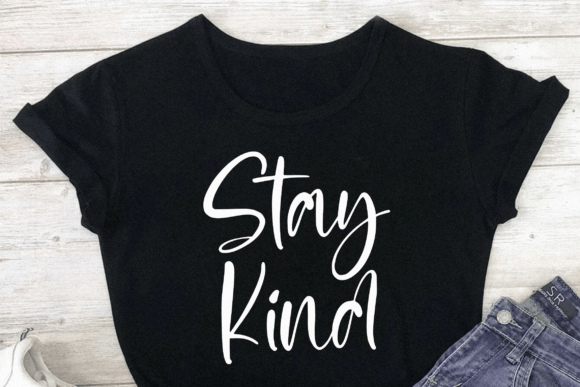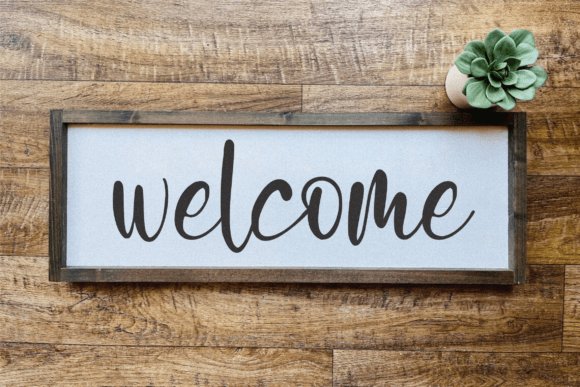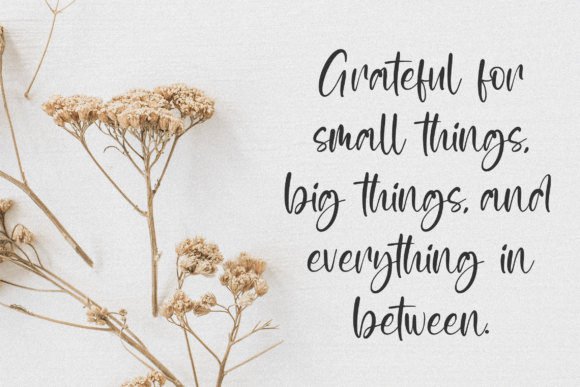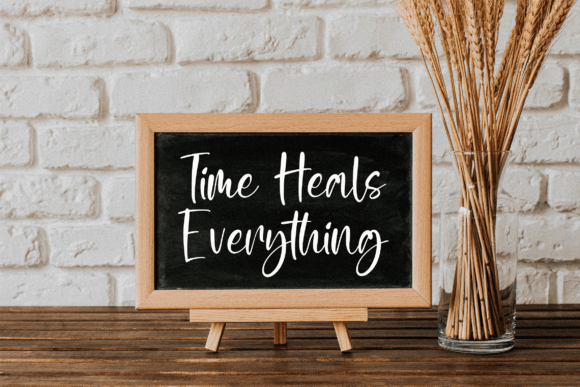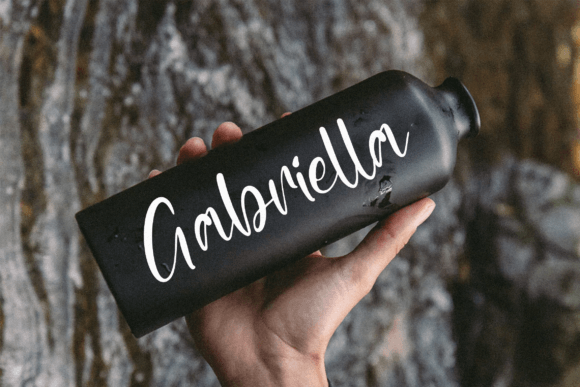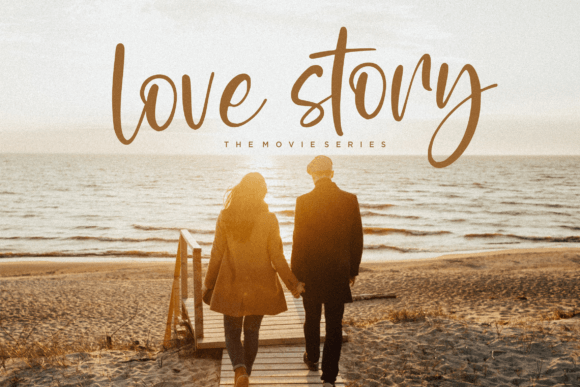
Introducing Daydreami Font: The Perfect Modern Handwritten Font for Your Creative Projects
In the world of typography, a good font can make all the difference in the success of a design project. Whether you’re a designer, craftsperson, or simply a creative individual, finding the right font can be a daunting task. That’s why we’re excited to introduce Daydreami Font, a modern handwritten font that’s perfect for a wide range of applications. From product packaging and branding projects to magazines, social media, weddings, and more, Daydreami Font is the ideal choice for anyone looking to add a personal touch to their work.
What is Daydreami Font?
Daydreami Font is a modern handwritten font that’s designed to be both elegant and approachable. With its smooth, flowing lines and whimsical feel, this font is perfect for adding a touch of personality to any design project. Whether you’re looking to create a bold statement or a subtle accent, Daydreami Font is the perfect choice.
Key Features of Daydreami Font
So, what makes Daydreami Font so special? Here are just a few of its key features:
- Modern and Handwritten: Daydreami Font is a modern handwritten font that’s designed to look both contemporary and approachable.
- Versatile: This font is perfect for a wide range of applications, from product packaging and branding projects to magazines, social media, weddings, and more.
- Elegant and Whimsical: With its smooth, flowing lines and whimsical feel, Daydreami Font is the perfect choice for anyone looking to add a touch of personality to their work.
- Easy to Read: Despite its elegant and whimsical feel, Daydreami Font is still easy to read, making it perfect for body text and other applications where legibility is important.
How to Use Daydreami Font
So, how can you use Daydreami Font in your design projects? Here are just a few ideas to get you started:
- Product Packaging: Use Daydreami Font to add a personal touch to your product packaging. Whether you’re selling food, clothing, or accessories, this font is perfect for creating labels, tags, and other packaging materials.
- Branding Projects: Daydreami Font is also perfect for branding projects, such as logos, business cards, and letterheads.
- Magazines and Social Media: Use Daydreami Font to add a touch of personality to your magazine or social media posts. This font is perfect for headings, subheadings, and other display text.
- Weddings and Events: Daydreami Font is also perfect for weddings and other events. Use it to create invitations, programs, and other event materials.
Why Choose Daydreami Font?
So, why should you choose Daydreami Font for your design projects? Here are just a few reasons:
- Unique and Creative: Daydreami Font is a unique and creative font that’s sure to stand out in a crowd.
- High-Quality: This font is designed to be high-quality and professional, making it perfect for commercial and personal projects.
In conclusion, Daydreami Font is a modern handwritten font that’s perfect for a wide range of design projects. With its smooth, flowing lines and whimsical feel, this font is sure to add a touch of personality to any design. Whether you’re a designer, craftsperson, or simply a creative individual, Daydreami Font is the perfect choice. So why wait? Download Daydreami Font today and start creating your own unique and creative designs!